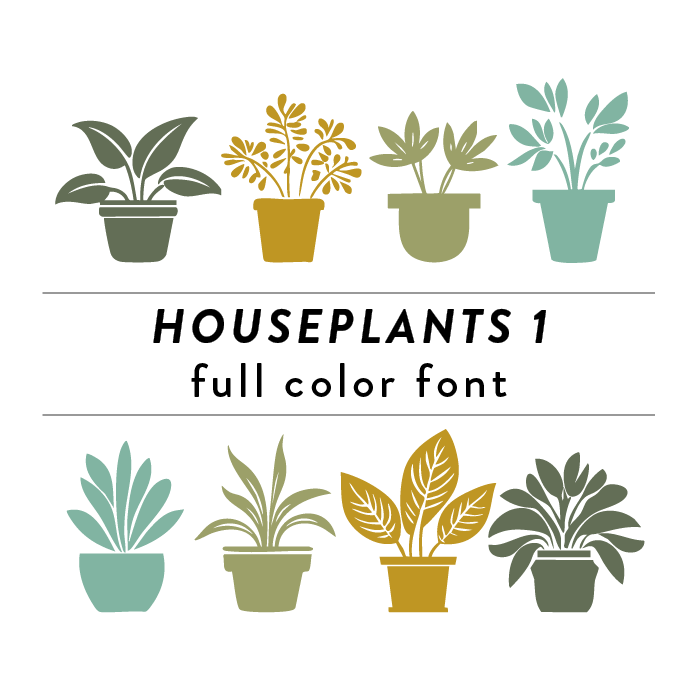
Houseplants Full Color Font is a whimsical and vibrant font design featuring various types of potted houseplants, This decorative font adds a touch of nature to any project, perfect for botanical-themed designs or plant lovers. The detailed and colorful illustrations make this font stand out and bring a fun and lively element to any mix and match, DIY project. This font is a OTF craft font that will appear in color only when used with the silhouette software.